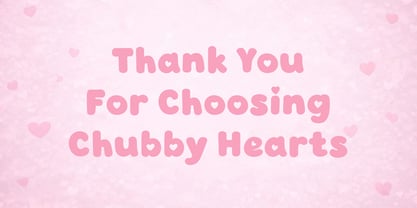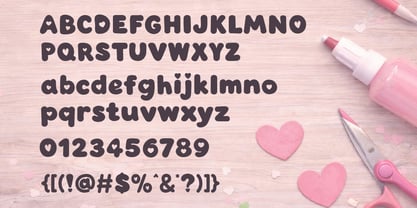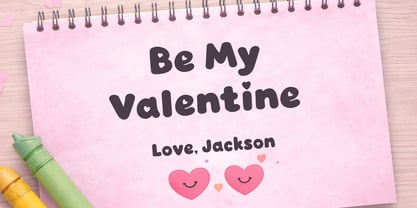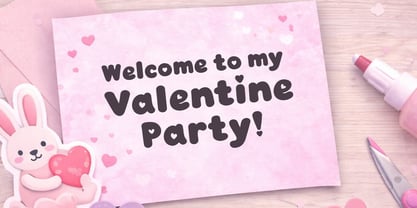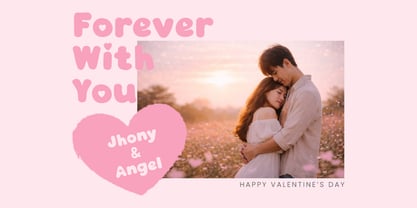
Chubby Hearts
by Qiubare Studio
The Chubby Hearts Font Family was designed by Michael Everson and published by Qiubare Studio. Chubby Hearts contains 1 styles.
Chubby Hearts is a cute rounded display font designed to bring warmth, joy, and playful charm to your designs. Featuring soft curves, bold strokes, and heart-shaped details, this font creates a friendly and lovable personality that instantly feels sweet and inviting. Perfect for Valentine’s Day projects, children’s designs, greeting cards, invitations, packaging, posters, social media graphics, and playful branding, Chubby Hearts works beautifully wherever a cheerful and affectionate tone is needed. Its rounded forms and clear letter shapes ensure excellent readability while maintaining a fun, decorative style. Whether you’re creating romantic messages, cute illustrations, or joyful visual stories, Chubby Hearts adds a touch of happiness and heartfelt emotion to every composition.
Designers: Michael Everson
Publisher: Qiubare Studio
Foundry: Qiubare Studio
Design Owner: Qiubare Studio